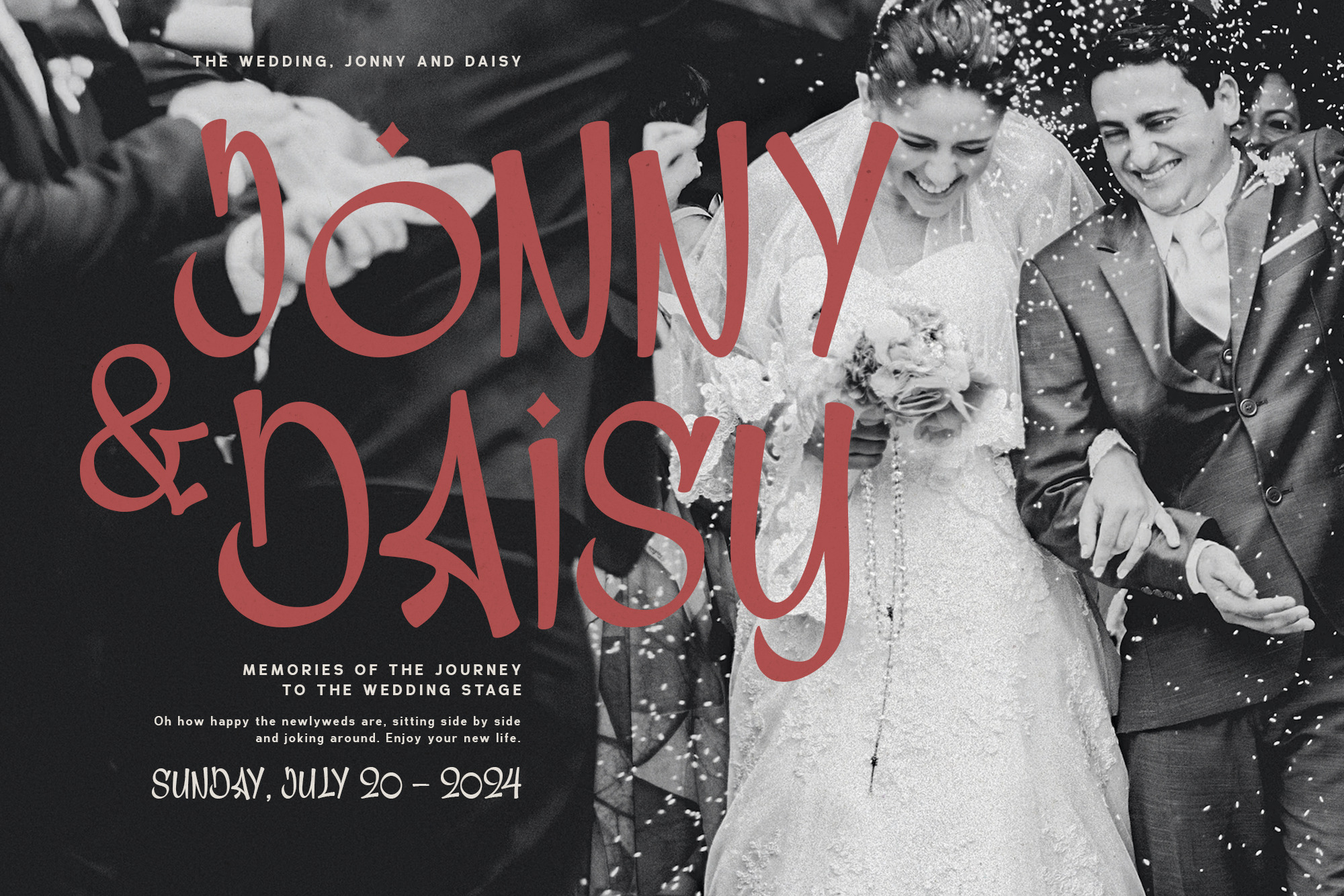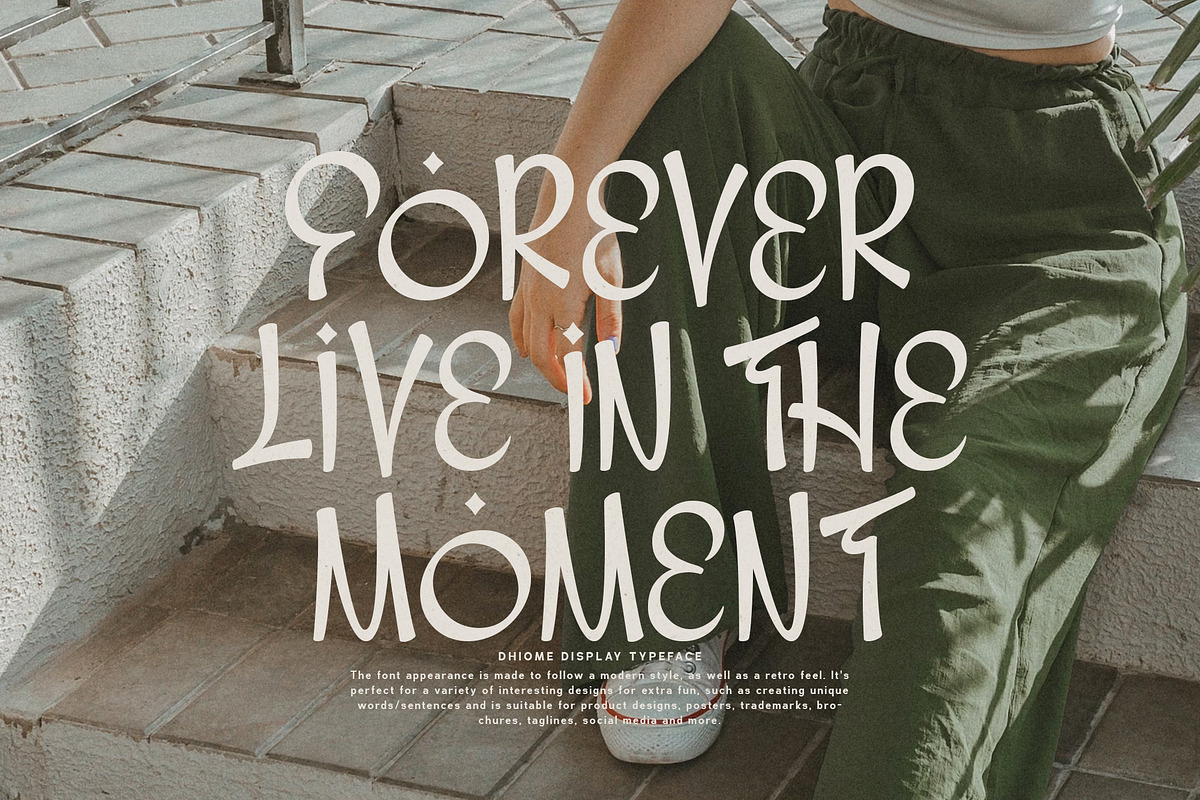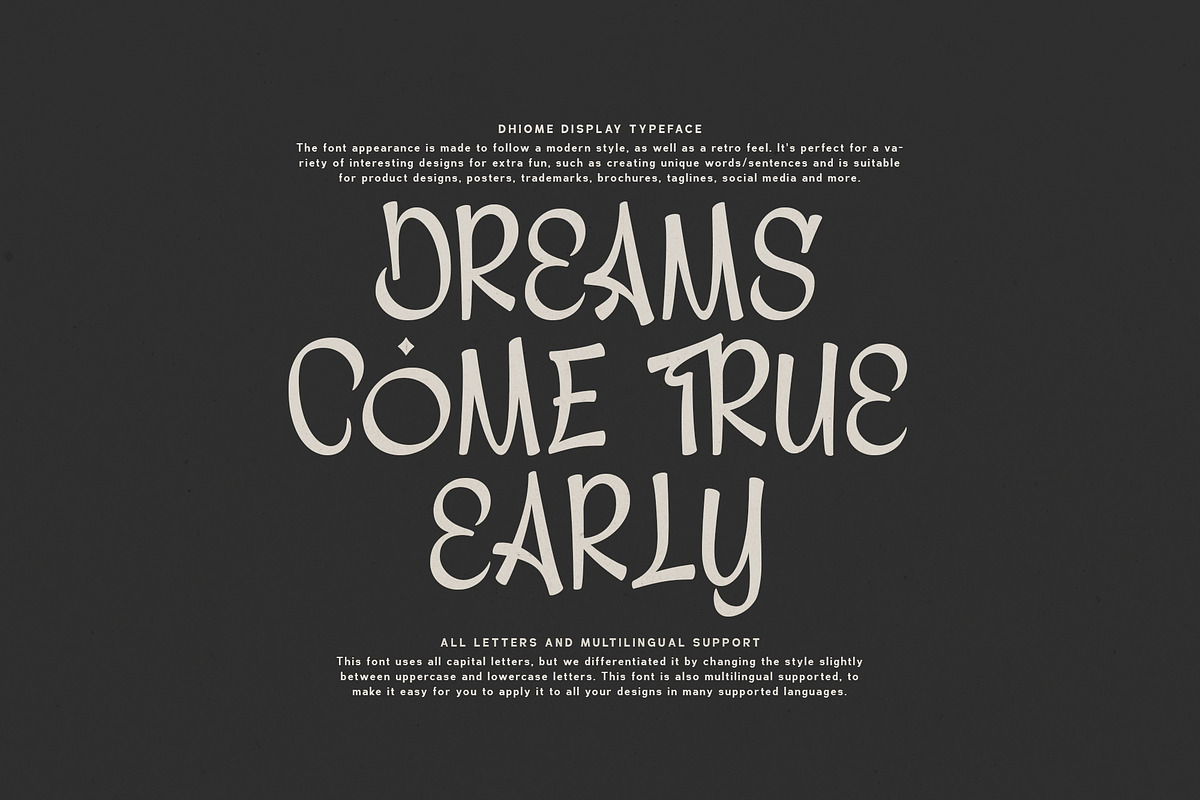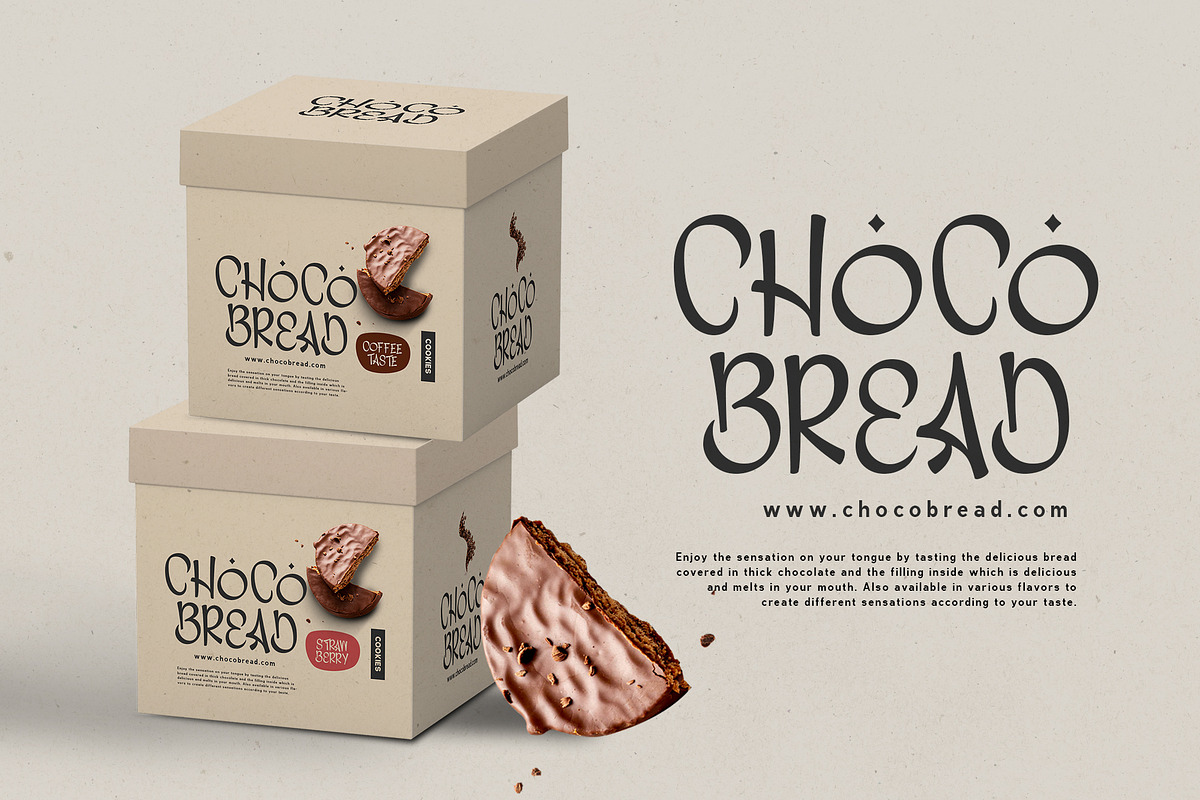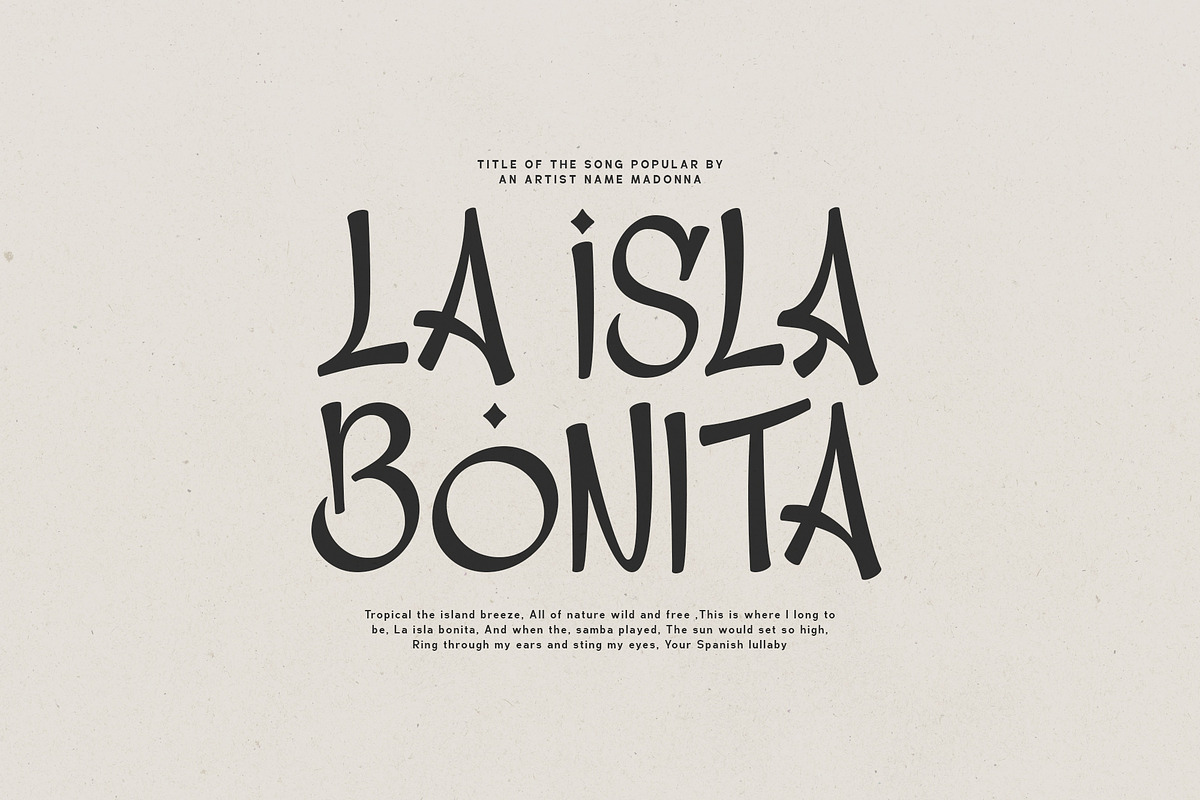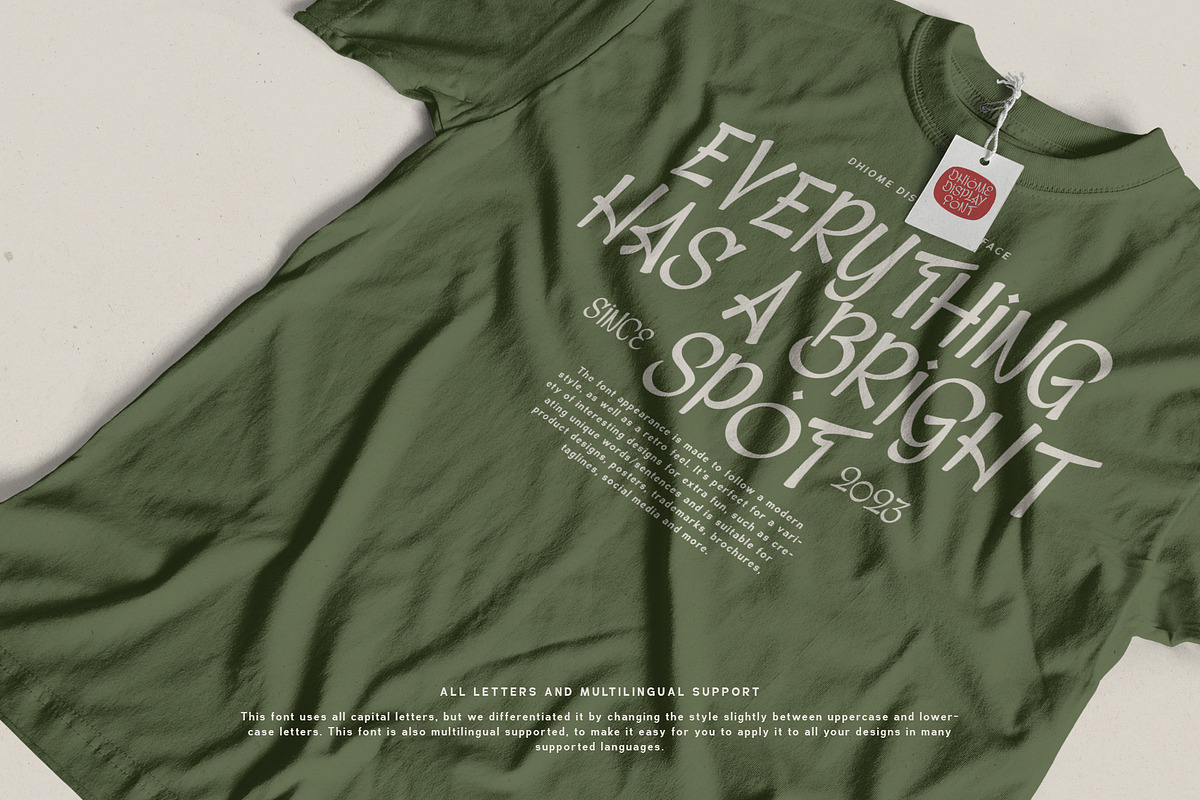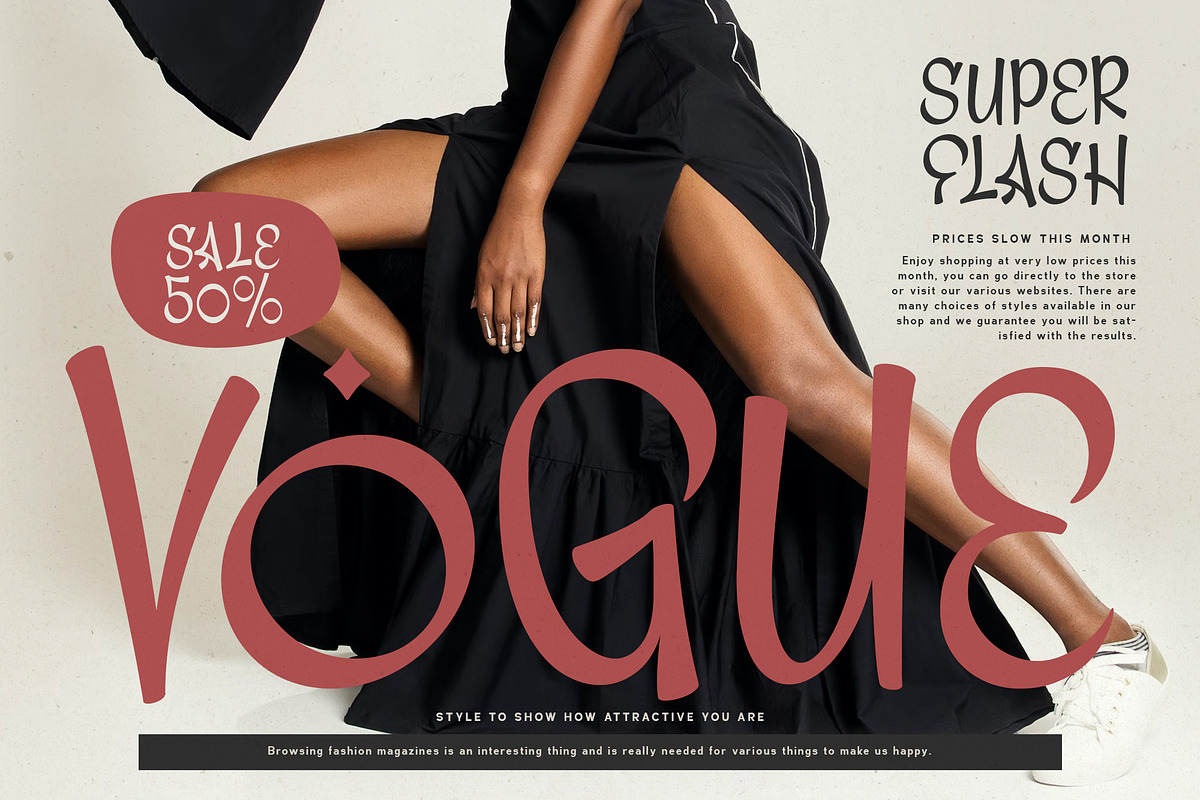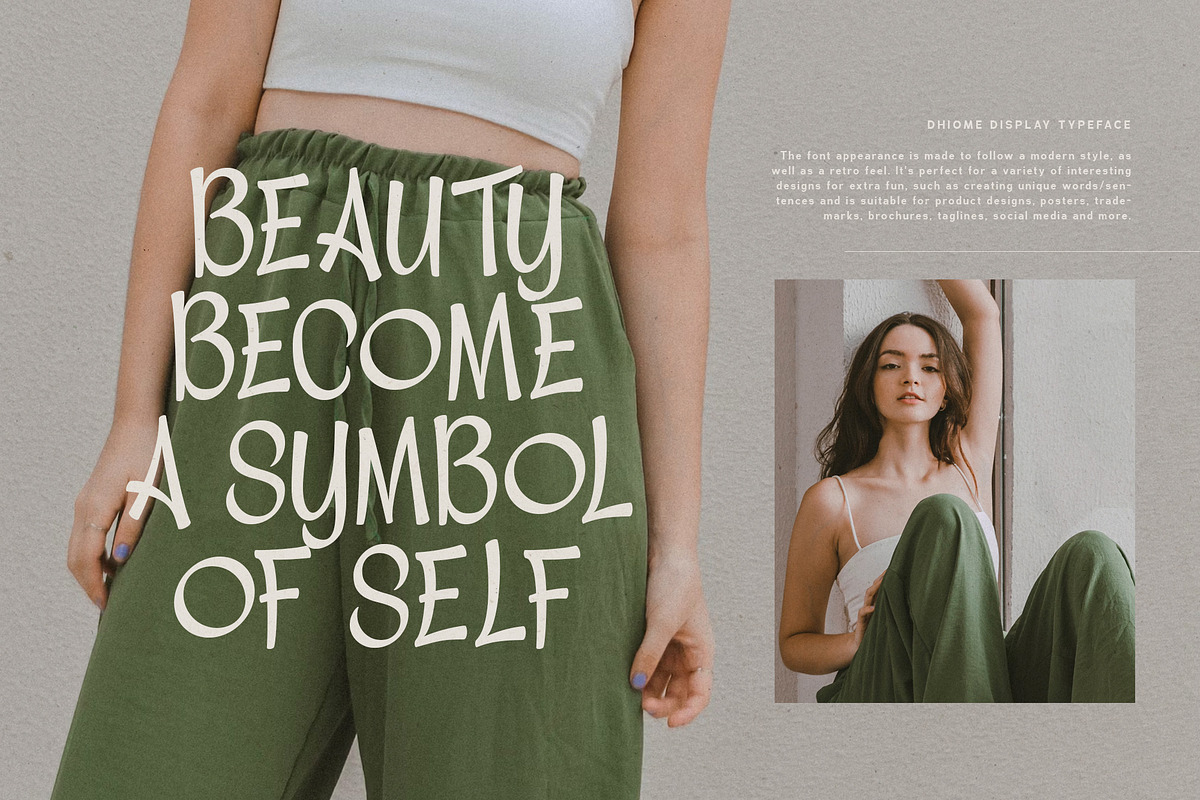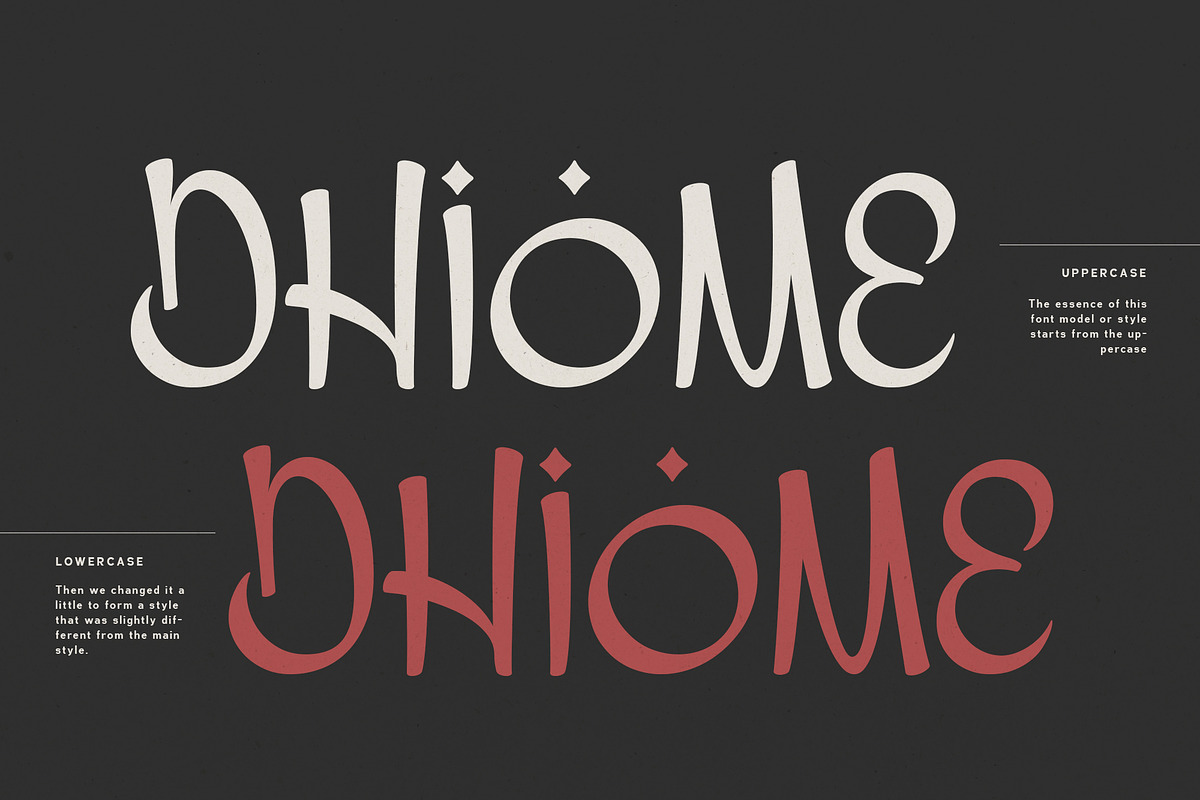
Dhiome - Display Typeface
Maculinc - DHIOME DISPLAY TYPEFACE - The font appearance is made to follow a modern style, as well as a retro feel. It's perfect for a variety of interesting designs for extra fun, such as creating unique words/sentences and is suitable for product designs, posters, trademarks, brochures, taglines, social media and more.
ALL LETTERS AND MULTILINGUAL SUPPORT - This font uses all capital letters, but we differentiated it by changing the style slightly between uppercase and lowercase letters. This font is also multilingual supported, to make it easy for you to apply it to all your designs in many supported languages.